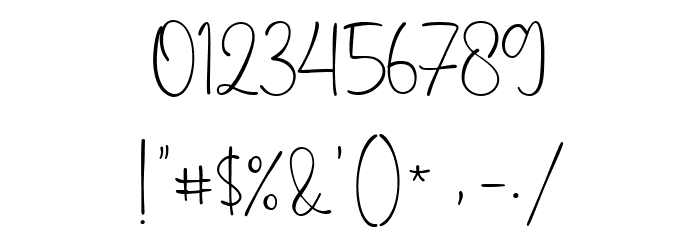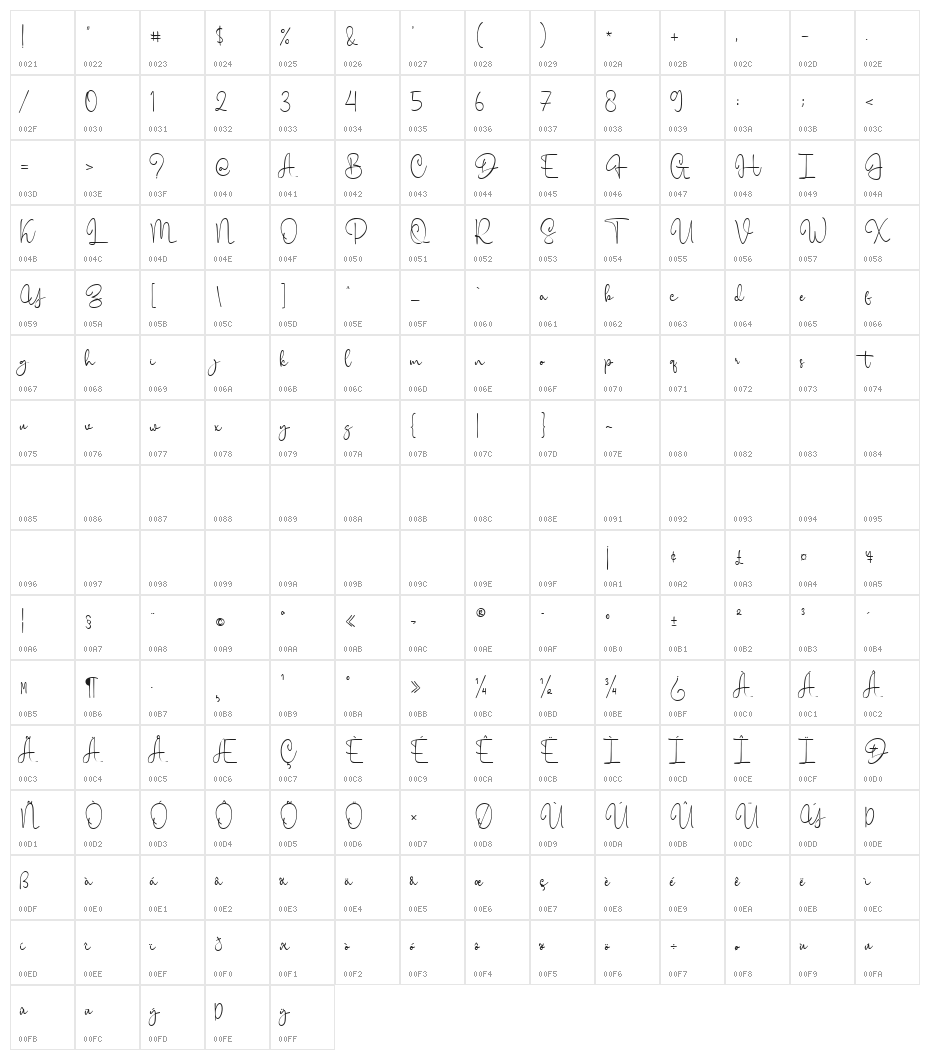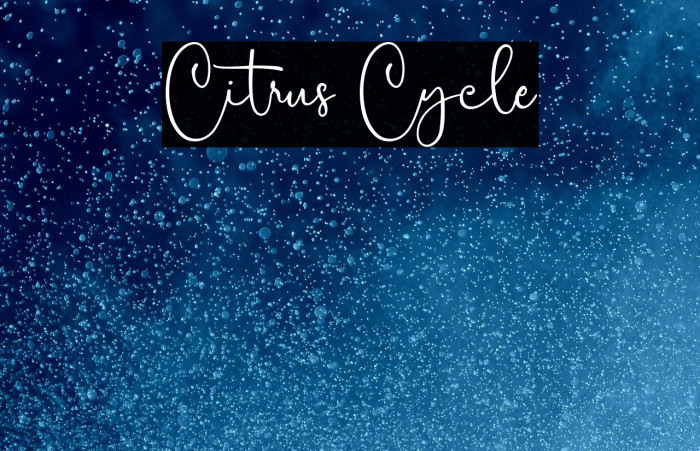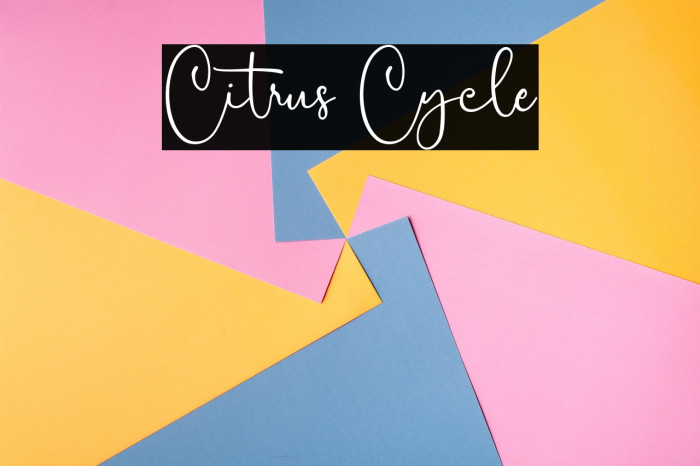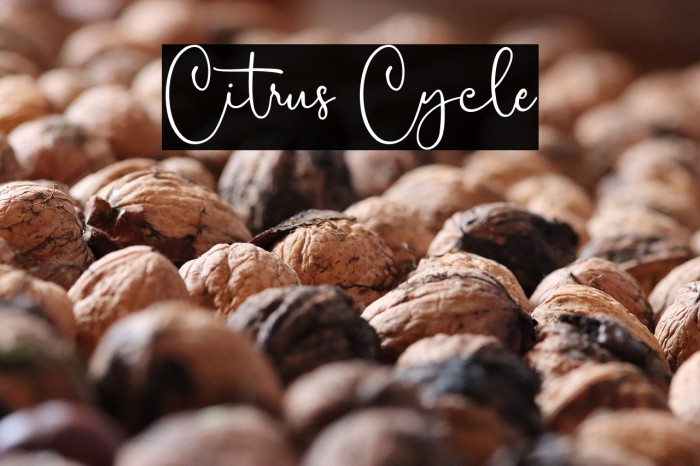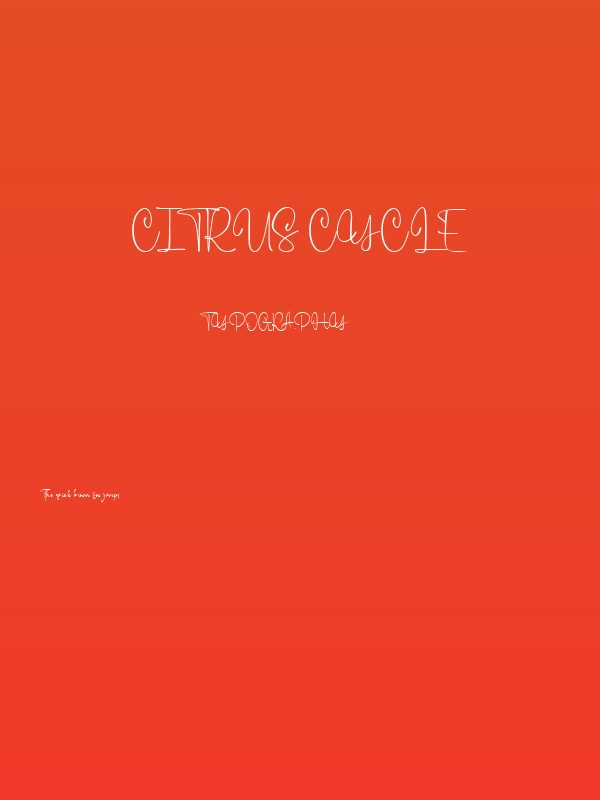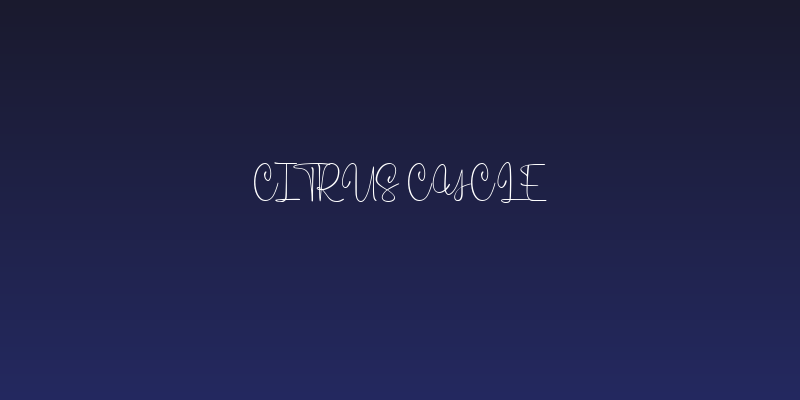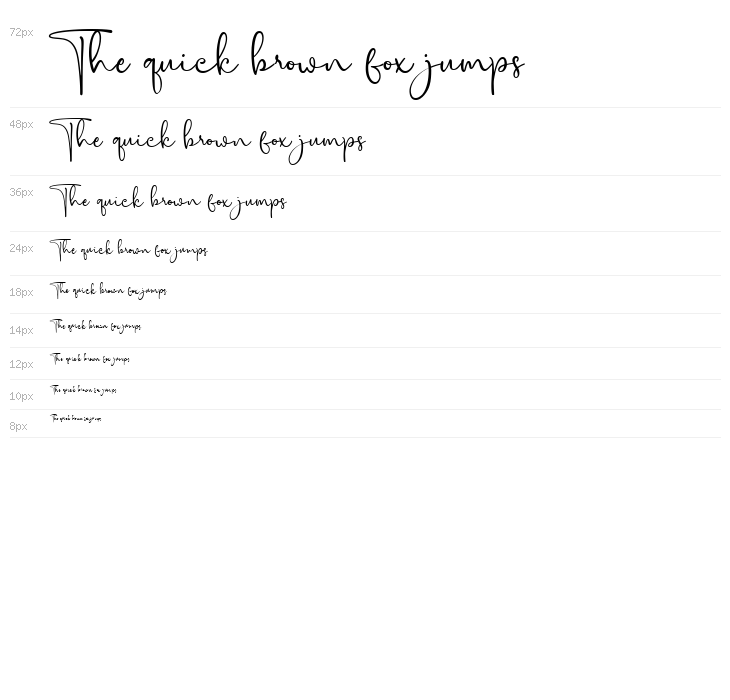
Citrus Cycle Font
Citrus Cycle Description
This font features a playful and elegant script style, characterized by its fluid and continuous strokes. The uppercase letters are bold and decorative, with unique loops and swirls that add a whimsical touch. The lowercase letters maintain a consistent flow, enhancing readability while retaining an artistic flair. Numbers and special characters are designed to complement the overall style, with a balance of curves and straight lines. This font exudes a sense of creativity and charm, making it suitable for a variety of design projects.